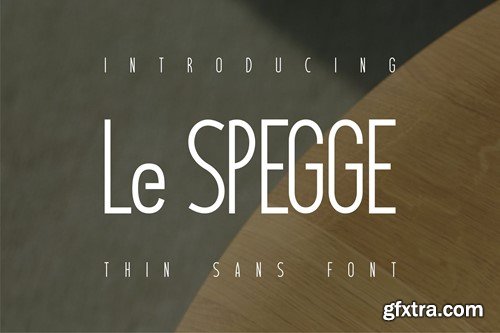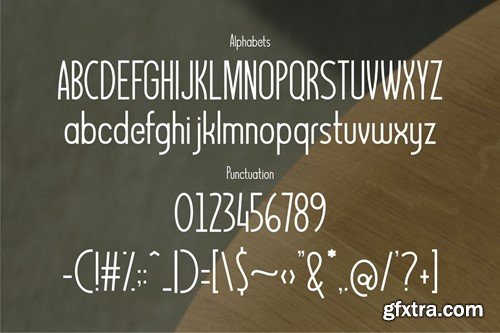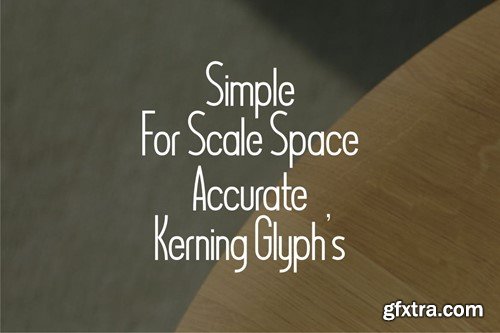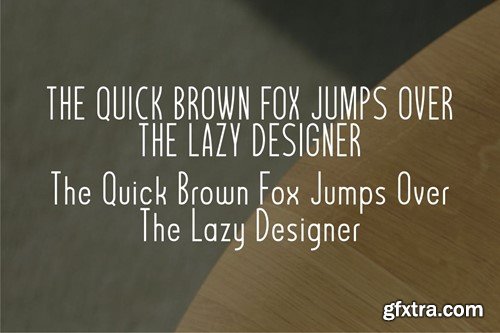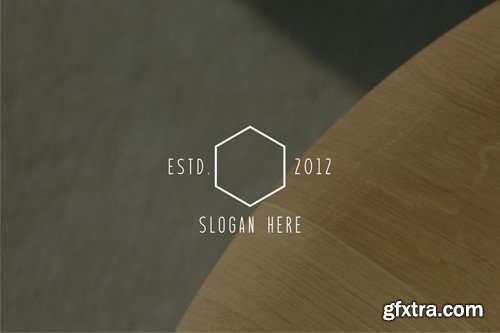
Le Spegge Font
A light font from the Sans-serif family, suitable for product descriptions and introductions. This font is made a little taller, so that it can be adapted to the combination of capital letters and low letters. Spacing settings are the right choice for this font. kerning uses the Monospace method, making it possible for glyphs to be accurate between one another without fear of damage between the spacing. Fonts are available in .OTF and .TTF formats. Thank You